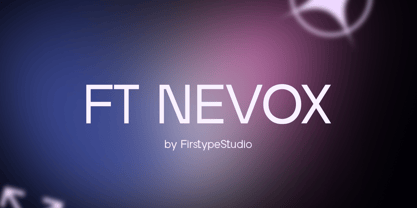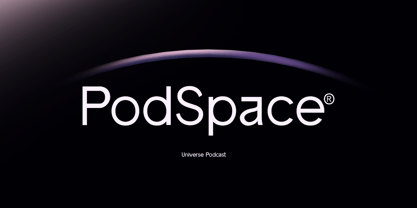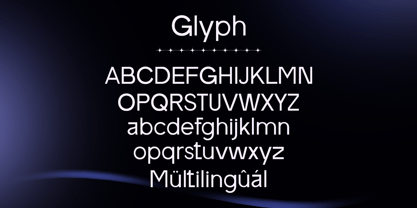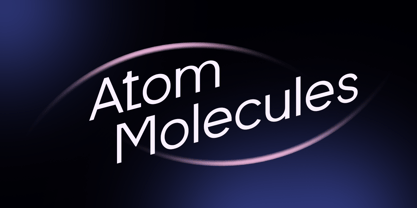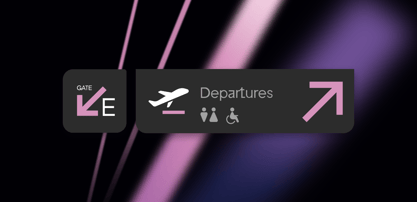
FT Nevox
by Firstype Studio
The FT Nevox Font Family was designed by Adrian Syauqi and published by Firstype Studio. FT Nevox contains 2 styles and family package options. More about this family
FT NEVOX is a sleek sans serif font that exudes precision and contemporary elegance. Designed with clean lines and balanced proportions, it captures the essence of modernity and professionalism. Its minimalist design ensures it’s both highly readable and visually striking, making it an ideal choice for versatile, impactful designs.
Every character in FT NEVOX feels meticulously crafted, with a perfect balance of curves and edges that give it a polished yet approachable appearance. The font's simplicity belies its depth, offering subtle details that set it apart as a premium sans serif typeface. FT NEVOX’s geometric structure ensures clarity and cohesion, whether used in large headlines or fine body text.
FT NEVOX thrives in projects that demand a professional, understated aesthetic. Its versatility makes it perfect for corporate branding, web and app design, editorial layouts, and sleek product packaging. Whether you’re creating a bold logo, designing a clean website, or crafting a modern presentation, FT NEVOX brings effortless style and sophistication to every project.
This typeface isn’t just about clarity—it’s about creating a lasting impression of elegance and innovation. FT NEVOX’s refined forms and modern sensibility ensure it shines in both digital and print applications, making it a go-to font for designers looking to elevate their work.
FT NEVOX is the embodiment of modern minimalism, delivering sophistication and adaptability for any design challenge.
Designers: Adrian Syauqi
Foundry: Firstype Studio